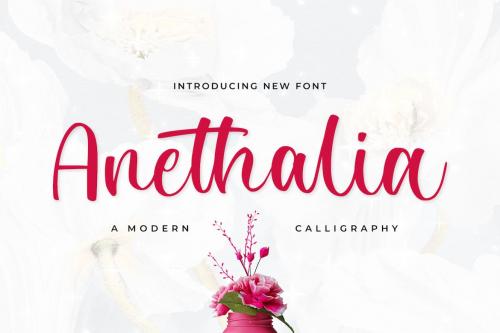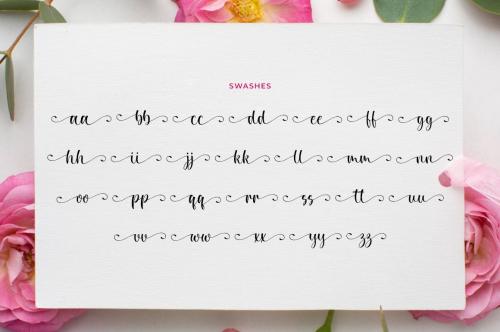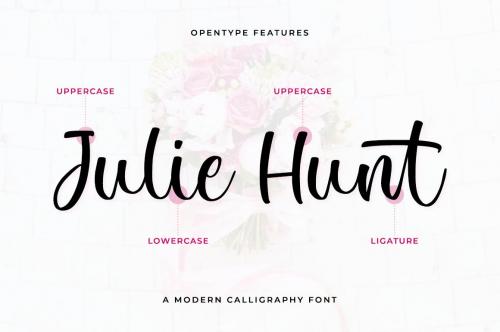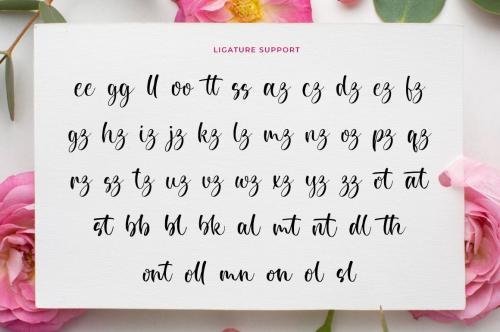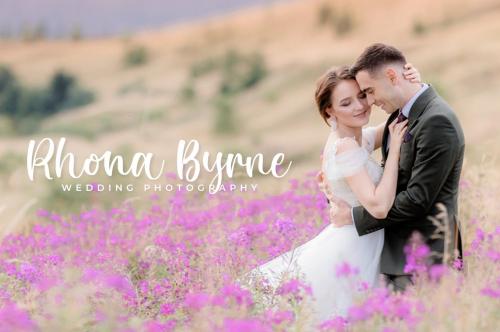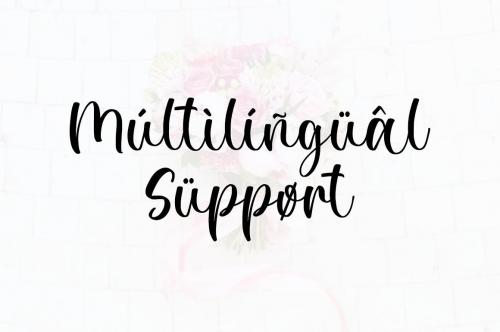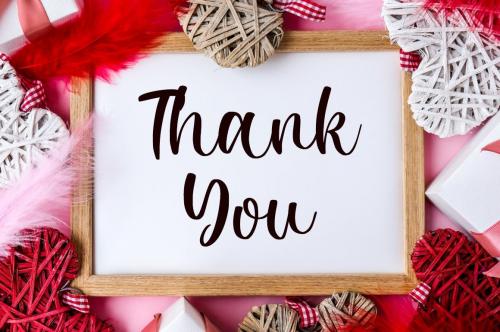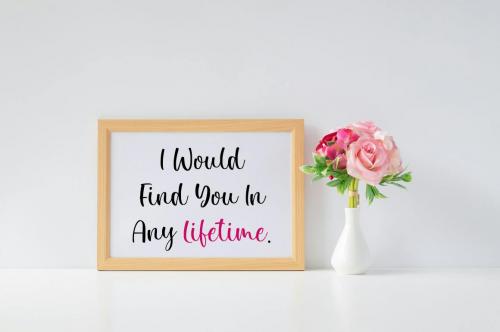
Anethalia - Wedding Font
**Anethalia** is a lovely and delicate script font that exudes elegance and class. This font was particularly crafted for those who need a beautiful and refreshing look to their designs.
**Each Font Has:**
* Modern Handwritten Font
* Beautiful Swash (Ending tail)
* Beautiful Titling (Beginning tail)
* Special Ligatures
* Multilingual Support